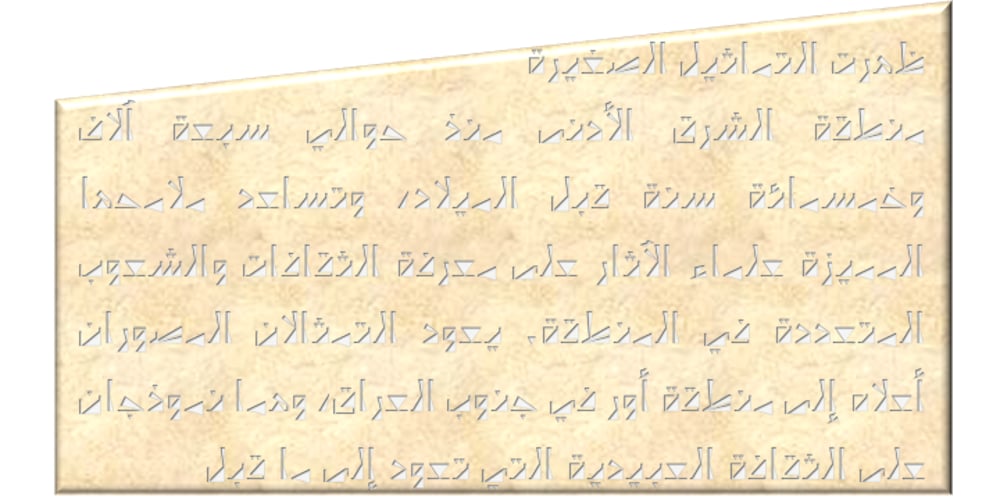
Someri
Someri font
Someri Font Family was designed by Saad D. Abulhab and published by Arabetics. Someri contains 2 styles and family package options. Someri (English: Sumerian) is an Arabetic type design with a Cuneiform spirit. The Someri family follows the guidelines of the Mutamathil Taqlidi type style. It has one glyph for every basic Arabic Unicode character or letter, as defined in Unicode Standards version 5.1, and one additional, final-position, glyph for each Arabic letter that is normally connected with other letters from both sides in traditional cursive Arabic strings. Someri employs variable x-height values. It includes all required Lam-Alif ligatures and uses ligature substitutions and selected marks positioning but it does not use any other glyph substitutions or forming. Text strings composed using types of this family are non-cursive with stand-alone isolated glyphs. Tatweel (or Kashida) glyph is a zero width space. Keying it before any glyph will display that glyph isolated form. Keying it before Alif Lam Lam Ha will display the Allah ligature. Someri family includes both Arabic and Arabic-Indic numerals; all required diacritic marks, Allah ligature, in addition to all standard English keyboard punctuations and major currency symbols. Fonts are available in regular and italic styles.